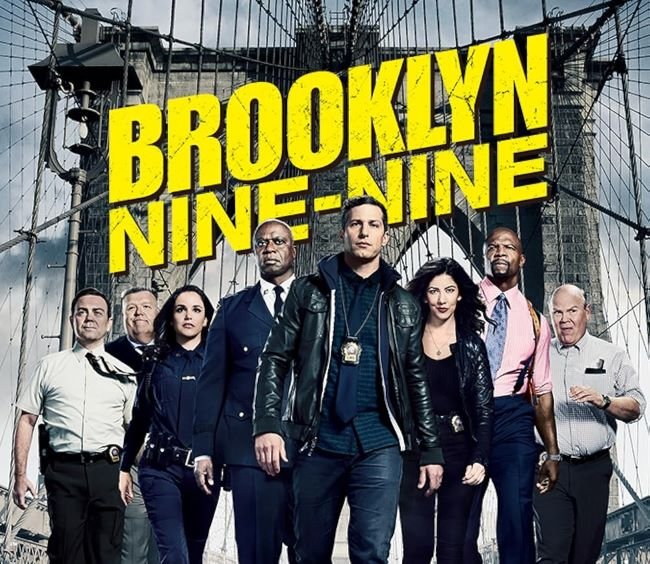
Brooklyn Nine Nine Font
Brooklyn Nine-Nine font navigates the same tonal challenge as the show itself — splitting the title across two distinct typographic registers to hold its dual identity as both genuine police procedural and genuinely excellent comedy. The “Brooklyn” portion and the “Nine-Nine” portion each use an alternative that contributes to the show’s warm, professional-but-playful visual personality: a clean, bold sans-serif font sensibility that feels at home on a precinct wall or a New York City street sign while communicating enough approachability to signal that what follows will be funny more often than harrowing.
Two alternatives are available: Brooklyn and Nine-Nine.